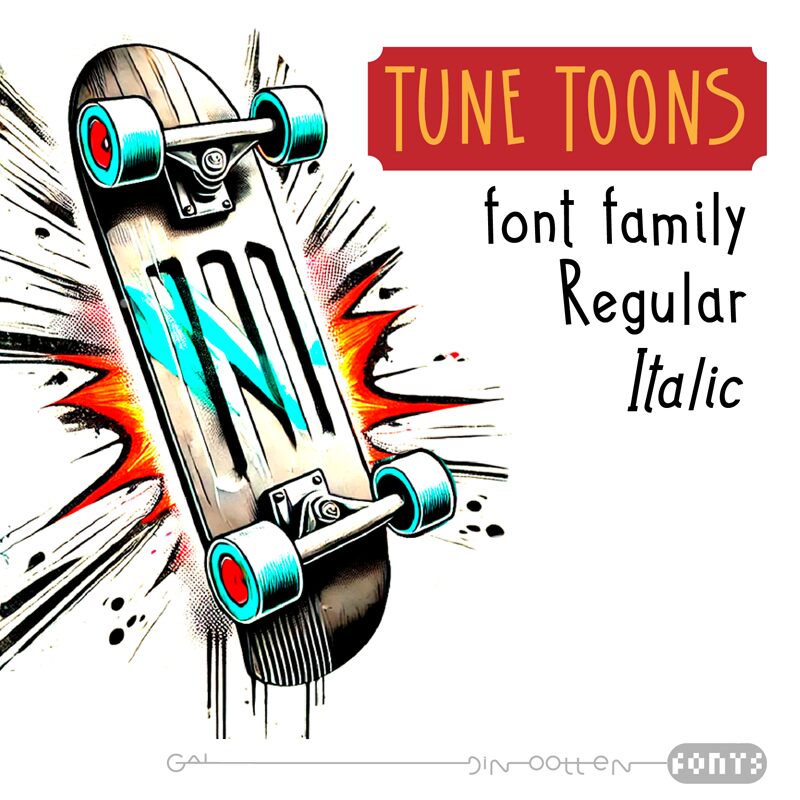
Tune Toons Italic
Tune Toons Italic font by Galdino Otten is a free display font without any displayed connections. It focuses on achieving smooth transitions and consistent overall rhythm for fully-readable typography. The whole typeface is condensed and all characters are set in italic emphasized style which provides unique touch to headlines or logos.
Achieve true elegance with this font that can be used for movie posters, titles, texts, website headers, cover designs, advertisements, social media posts or banners. You can further use it for game interfaces and videos especially those which need cartoon style appearance.